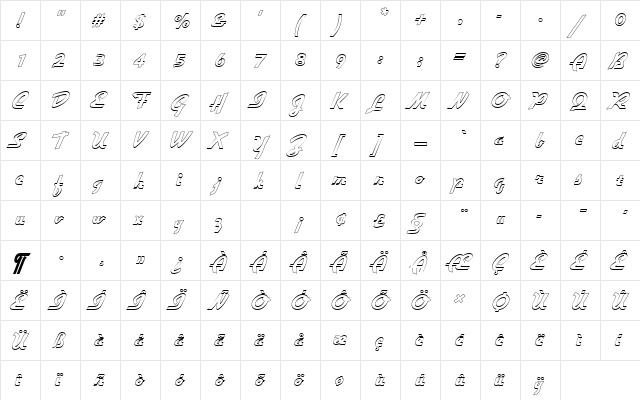
GilliesGotDExtBolOu1 Regular
Design Context for GilliesGotDExtBolOu1 Typeface
GilliesGotDExtBolOu1 offers clean, dependable letterforms without strong stylistic allegiance, making it a practical choice for designers who need flexibility.